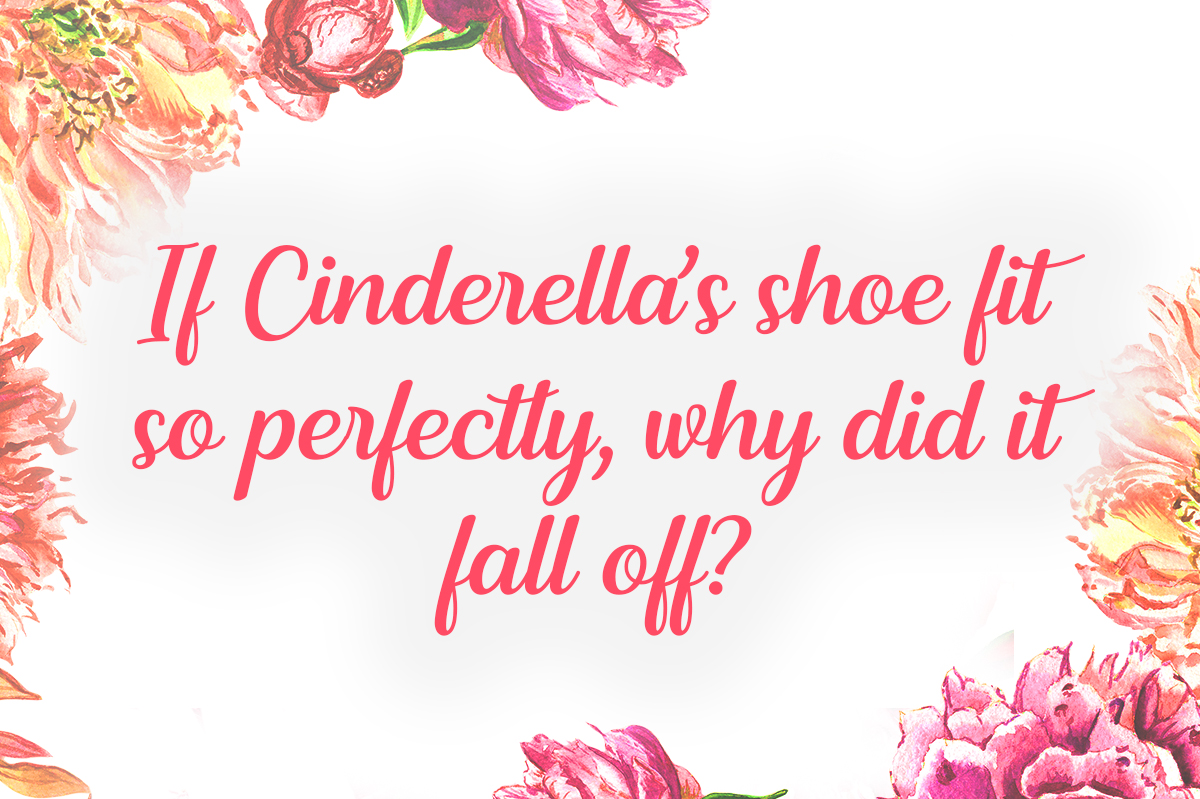
The Perfect Script for Your Next Design Project
Remember that moment when you’re brainstorming ideas for a new project, and the perfect font suddenly pops into your head? It’s a feeling of pure excitement and inspiration. For designers, this moment often comes when they stumble upon a font that perfectly captures the essence of their concept. And for those who love script fonts, the Buttercup Font is about to become their new go-to choice.
This charming cutesy and legible script font is specifically designed for headlines and logotype projects, making it a valuable addition to any designer’s toolkit. The Buttercup Font is a stunning script that can add an unparalleled style and grace to your designs, setting you apart from the crowd and making your work truly unforgettable.
Whether you’re a seasoned designer or just starting out, the Buttercup Font is a must-try. Its unique blend of cutesy and legible characteristics makes it an ideal choice for a wide range of design projects, from children’s books to fashion brands.
Key Features of Buttercup Font
- Unique Characteristics: Features a playful and whimsical feel, with subtle flair and rounded edges, making it perfect for creative and artistic designs.
Designer Review: Buttercup Font
Overall, I think the Buttercup font is a charming addition to any design project. ✨ It’s perfect for adding a touch of whimsy and playfulness, especially for children’s books, greeting cards, or other projects that require a lighthearted feel. The font’s irregularities and quirky character make it stand out from more traditional serif or sans-serif fonts.
- The Buttercup font’s unique character makes it great for adding personality to designs.
- The font’s playful feel is perfect for projects that require a carefree and fun atmosphere.
However, there are some limitations to consider. ⚠️ The font’s irregularities can make it challenging to read for some users, especially in longer blocks of text. Additionally, the font’s size and weight may not be suitable for all design projects, particularly those that require a more formal or professional tone.
Overall, I think the Buttercup font is a great choice for designers looking to add a touch of whimsy to their projects. While it may not be suitable for all design projects, its unique character and playful feel make it a great addition to any designer’s toolkit.